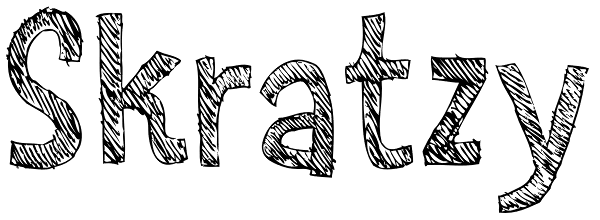
Skratzy
I had a cramp in my hand doing this font! Contains authentic scribbling! :) Comes with more than 80 different ligatures, to make it look more like real scribbling! You will need to use OpenType supporting applications to use the autoligatures.